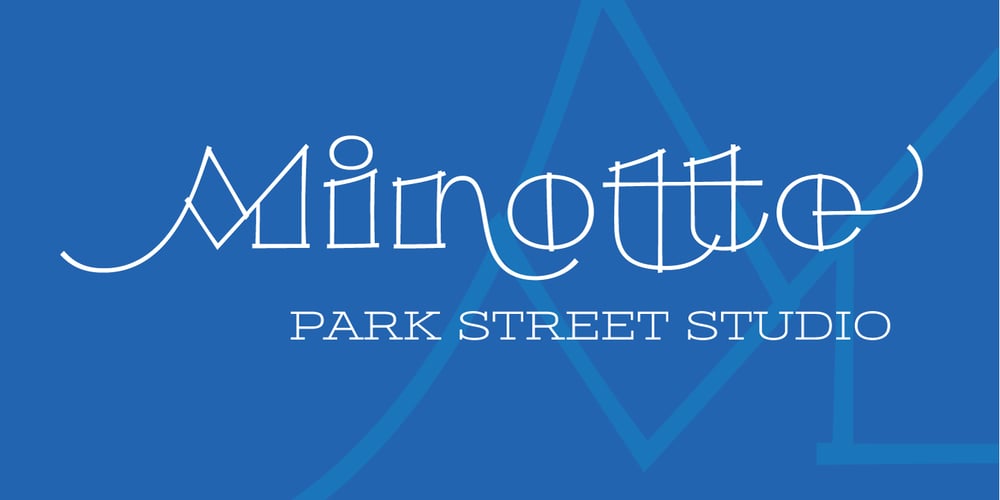
Minotte Font Family was designed by Jim Lyles and published by Park Street Studio. Minotte contains 6 styles and family package options. Originally conceived while sketching outline typefaces for a client, Minotte Pro has blossomed into a font one thousand glyphs strong and is chock full of alternates and contextual swashes! By enabling swashes, style sets, and contextual alternates in your OpenType savvy application, headlines and text set with Minotte Pro will transform into unique combinations of initial, middle and final swash forms! There’s also an alternate Cap set with a partial fill for even greater variety! Perfect for travel ad headlines, Minotte Pro adds a light, carefree touch. If your app doesn’t support OpenType, then check out the split out versions, Minotte, Minotte Swash, Minotte Fil and Minotte Swash Fil. Minotte Pro Minotte Solid Pro contain these OpenType features: Contextual Swashes, Stylistic Alternates, Standard & Discretionary Ligatures, 6 Style Sets, Superiors & Inferiors, Fractions and Ornaments. The Minotte Extras Pro Pak includes three chromatic effects fonts, Minotte Center, Minotte Gradient and Minotte Shadow. These Extras fonts are intended to be used with Minotte Pro and Minotte Solid Pro, allowing colorizing and 3-D shadow effects. There are numerous combinations when using all three together! The three Extras fonts support the entire Pro character set and all OpenType features! Intended for users that do not own or use OpenType savvy apps, the four alternative fonts capture the best of the Pro version and will provide you with the glyphs needed to duplicate some of Minotte Pro’s typographic richness. Minotte and Minotte Fil are fully usable, whereas the Minotte Swash and Minotte Swash Fil are intended to work in tandem with the basic Minotte fonts. Set your headlines and text in Minotte, then switch to Minotte Swash and manually select the appropriate swash glyphs. Switch to either of the Fil fonts for full sets of Cap alternates sporting a partial fill. Minotte Pro, Minotte, Minotte Fil, Minotte Swash and Minotte Swash Fil support an extended European character set.